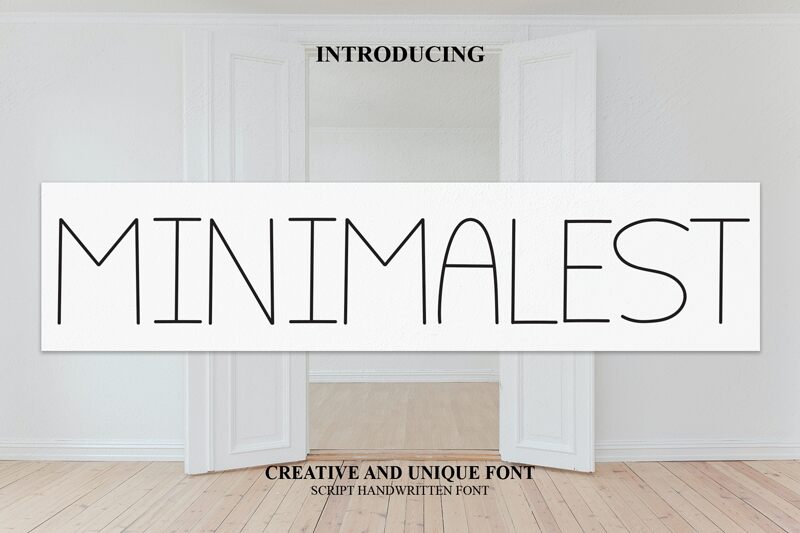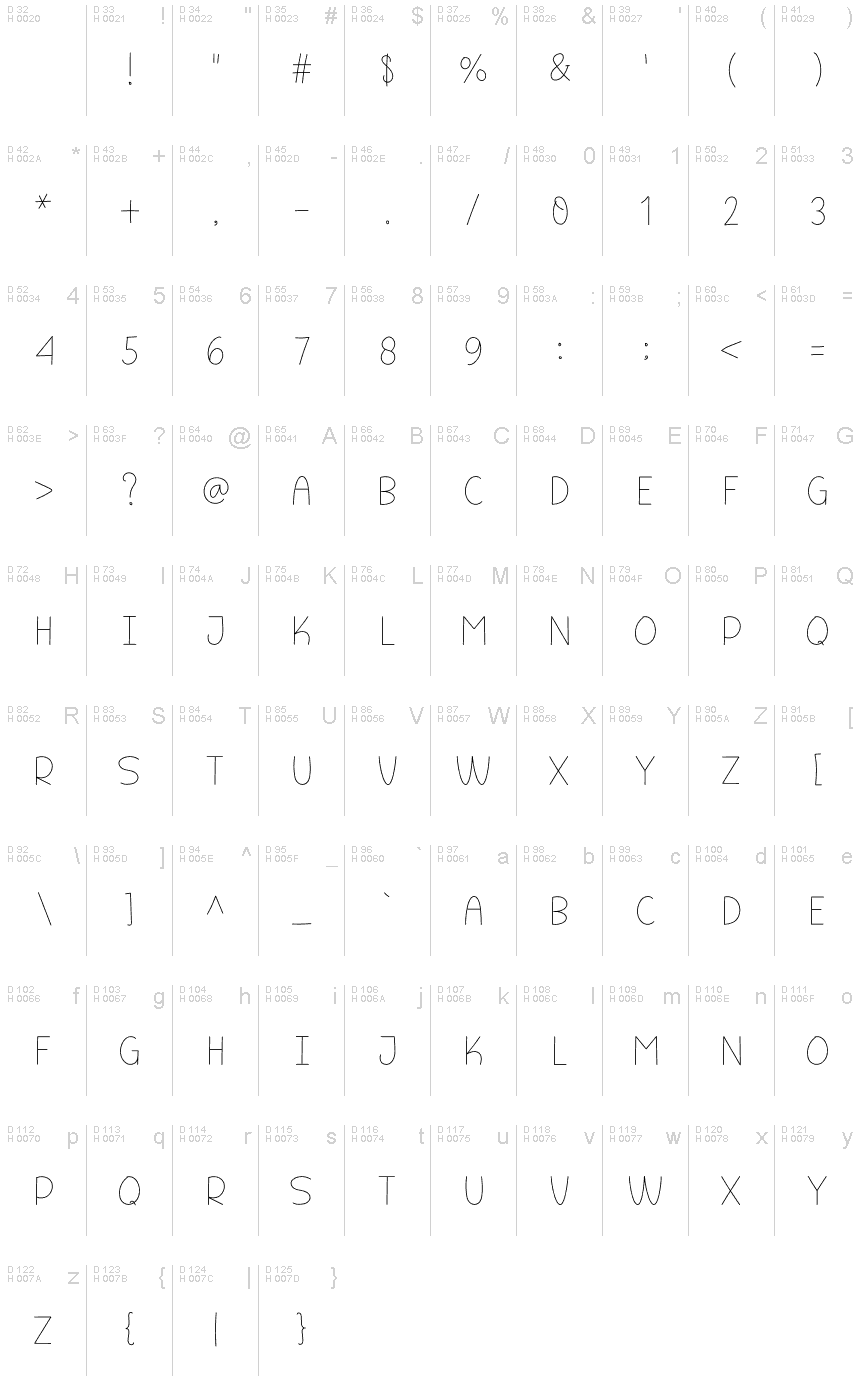
Minimalest
Minimalest, the extra-light handwritten font by Belina Studio, exudes an effortless charm that is perfect for projects that value simplicity and minimalism. Its airy strokes and delicate curves make it suitable for a wide range of creative endeavors such as branding, packaging, social media graphics, and editorial design. The understated elegance of Minimalest adds a touch of sophistication to any project while maintaining a friendly and approachable feel. With its versatility and unique character, this font is a must-have for designers who want to create beautiful designs with a personal touch.